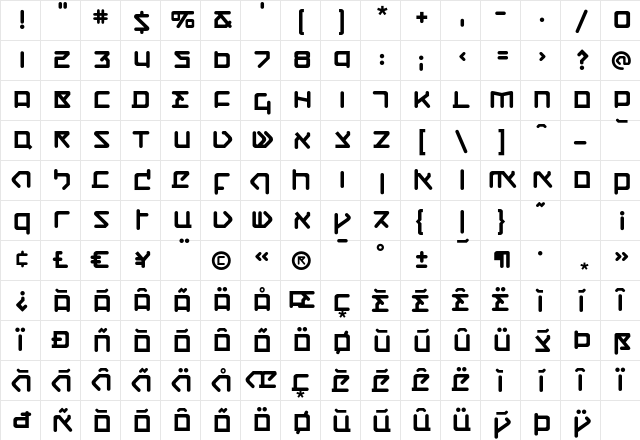
CQN-Molecular-Thermo Regular Free Font
CQN-Molecular-Thermo Regular
Design Context for CQN-Molecular-Thermo
CQN-Molecular-Thermo is a composed and adaptable typeface that performs quietly and consistently across a wide range of design contexts.